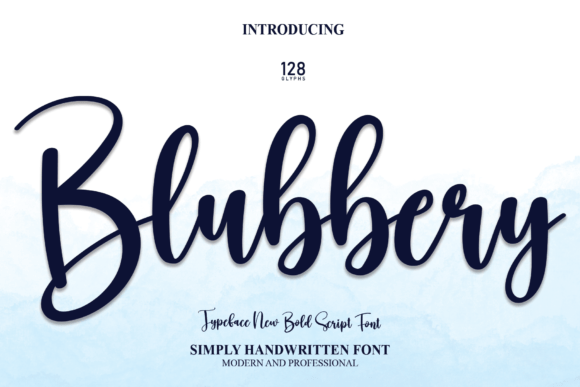
The Blubbery Font: A Handwritten Delight for Creative Projects
I’ll never forget the moment I stumbled upon the perfect font for a wedding invitation project. I had been searching for hours, trying out different styles, but nothing seemed quite right. The client wanted something elegant, yet playful; something that would capture the essence of their special day. That’s when I discovered Blubbery’s latest style letters – a game-changer for any designer, crafter, or creative hobbyist looking to add a personal touch to their work.
So, what makes Blubbery font so special? Let’s dive into the details.
- ✨ Elegant yet playful handwritten style, perfect for a wide range of creative projects
- 💫 Beautifully crafted letters with a personal touch, making each word feel special
- 🎨 Versatile and adaptable to various design contexts, from wedding invitations to social media posts
While Blubbery font is an excellent choice, there are a few things to keep in mind:
- ⚠️ Some letters may appear a bit inconsistent in size or spacing, which can actually add to the handwritten charm
- 🤔 Limited availability of certain characters or glyphs, but this can be addressed with OpenType features
The Story Behind Blubbery Font: A Glimpse into the Design Process
Blubbery font was created with the intention of capturing the essence of handwritten letters. The designer, inspired by the beauty of imperfection, aimed to craft a font that would feel personal and approachable. Through a process of experimentation and refinement, Blubbery font was born – a unique blend of elegance and playfulness.
Q: What types of projects is Blubbery font best suited for?
A: Blubbery font is perfect for a wide range of creative projects, including wall displays, wedding invitations, social media post logos, advertisements, product packaging, product designs, labels, photography, watermarks, invitations, stationery, and more.